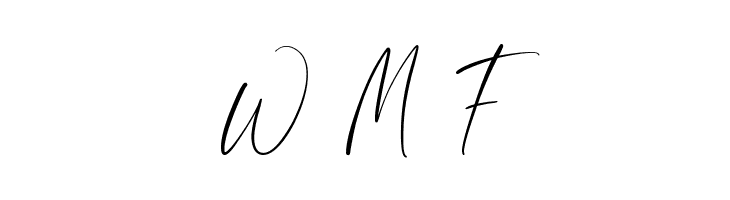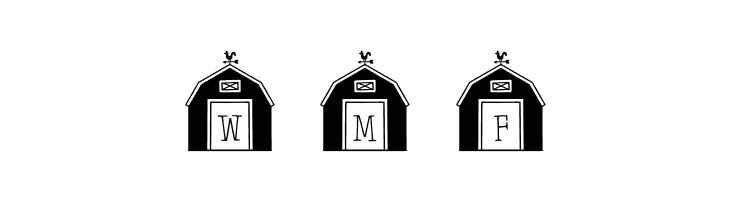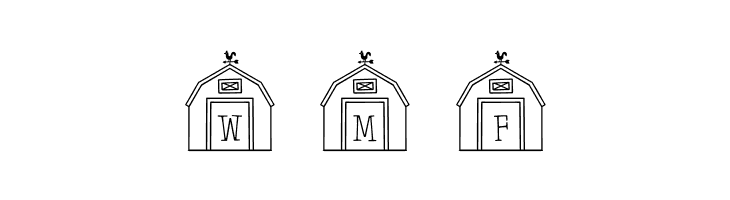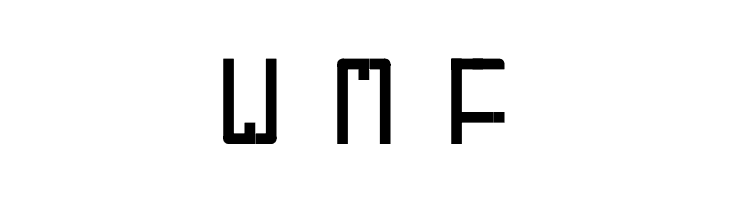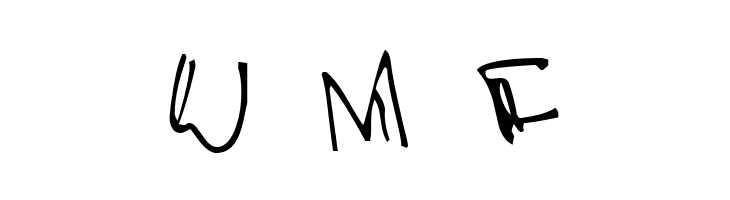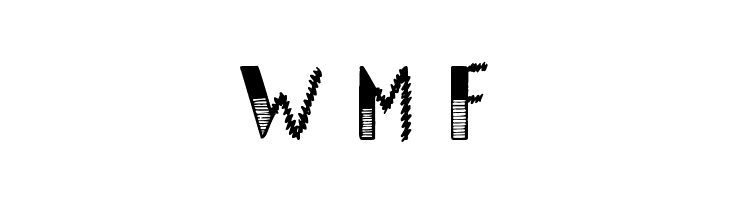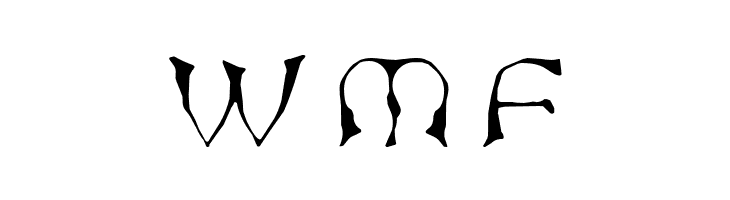
A bold, geometric font with Art Deco influences, ideal for striking headlines.
An edgy, barbed wire-inspired font with sharp, pointed edges.
A fluid, cursive script font with a natural handwritten style.
A bold, playful font with zigzag edges and striped interiors.
A playful, barn-themed decorative font with bold uppercase letters.
A decorative font with characters enclosed in barn-like structures, ideal for rustic themes.
A playful, chaotic handwritten font with uneven strokes and a distressed look.